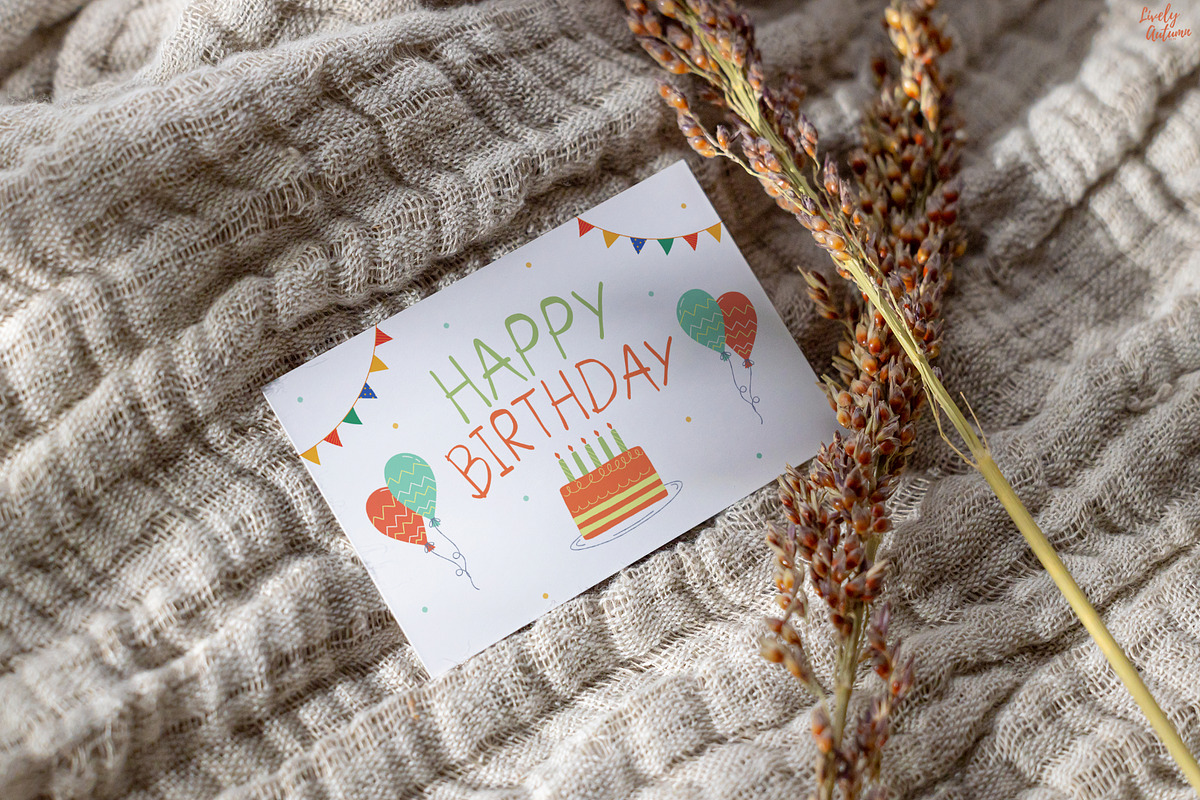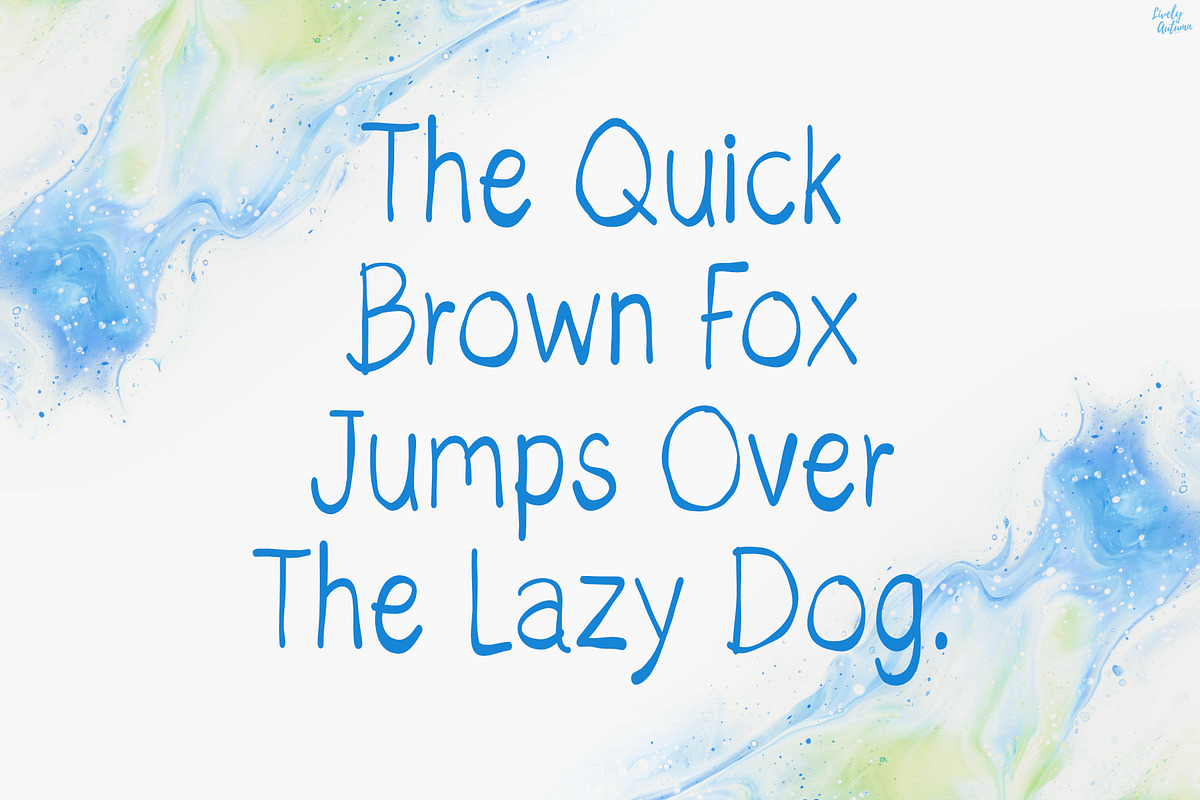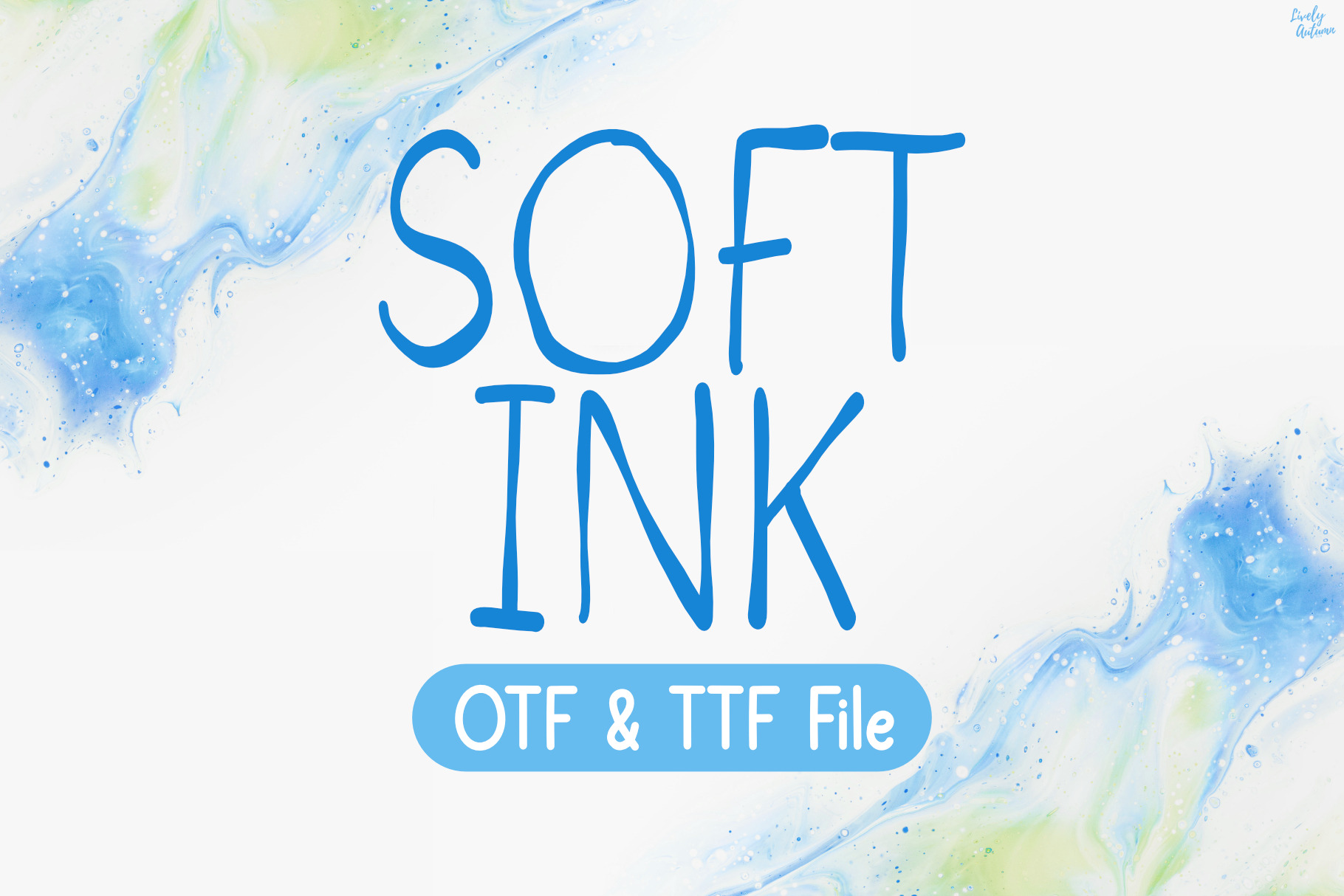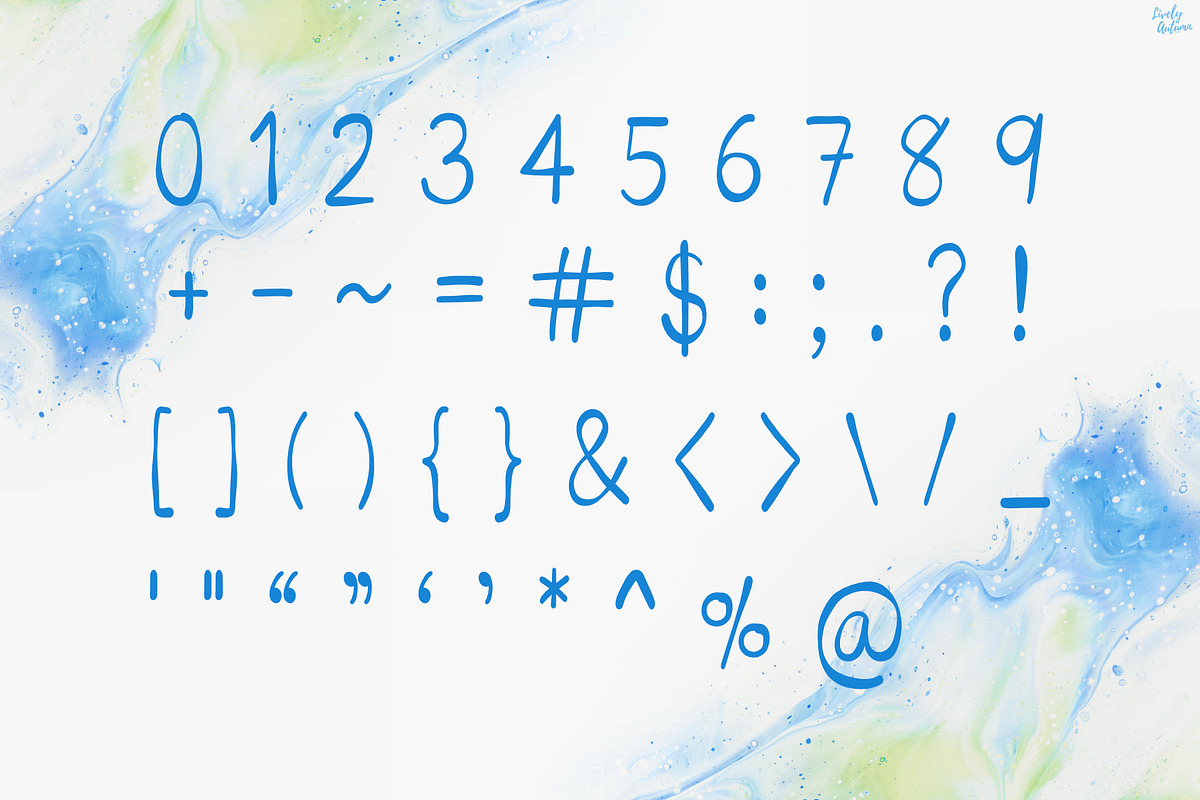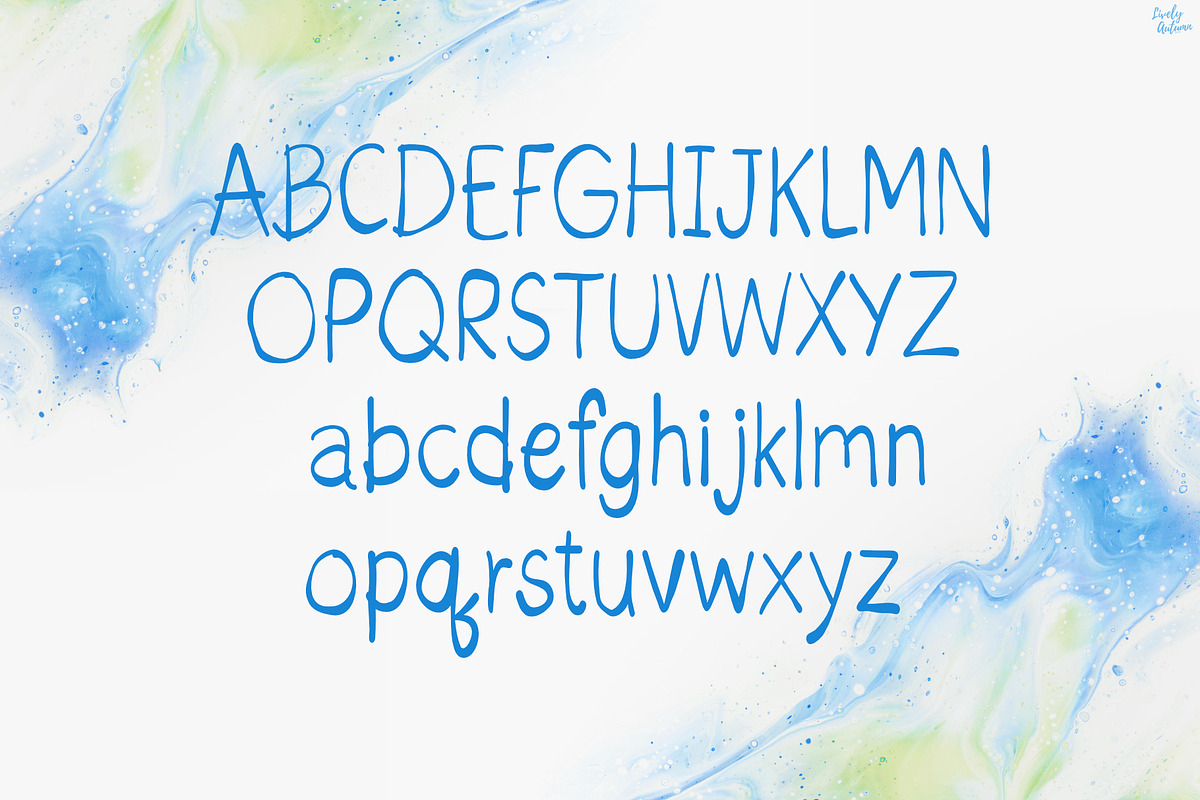
Soft Ink | Handwriting font
Soft Ink Font is a handwritten font with an ink brush style. Perfect for your personal projects and various projects. From invitations to posters, social media graphics, journals, and much more.
- Font includes: uppercase, lowercase, numbers, and punctuation